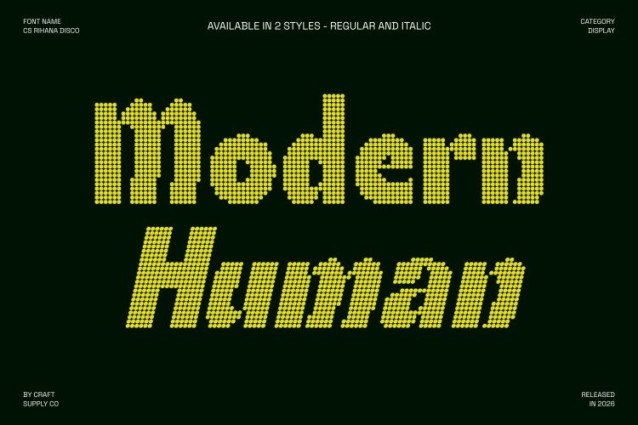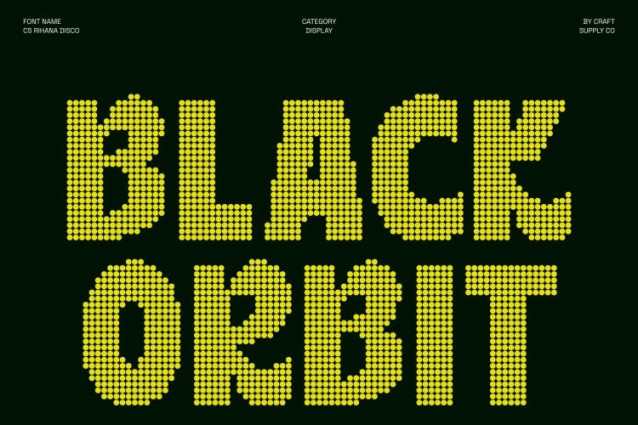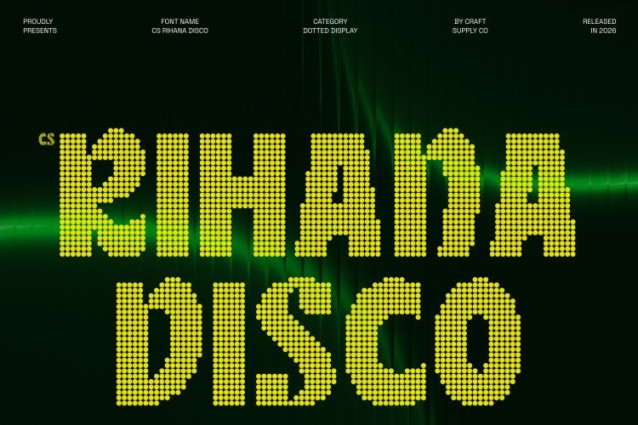
CS Rihana Disco Font
CS Rihana Disco Font – This Dot transforms the strong, modern sans serif into a display font made of vibrant dots. Each letter is crafted with playful circular elements that evoke sparkling lights, confetti, and the high-energy rhythm of the disco era. The bold structure is preserved, while the dotted detailing adds motion and visual excitement.
Stylish Sans Serif with Party Flair
Maintaining its clean lines and geometric strength, this version infuses stylish detailing inspired by disco aesthetics. The dots give the typeface a festive personality, turning every headline into a dynamic, eye-catching statement. The combination of bold weight and dotted texture conveys confidence with fun, glamour, and exuberance.
Perfect for Impactful Titles and Branding
Ideal for posters, event graphics, club promotions, music album covers, fashion campaigns, and social media visuals, Dot delivers maximum attention and a memorable, lively appearance. Its bold form ensures readability, while the dotted effect makes the typography feel celebratory, stylish, and energetic.
Glamorous, Playful, and Memorable
This disco-inspired version takes the commanding presence of the original and adds a cheerful, party-ready twist. Every word looks like it’s illuminated with disco lights, creating a fun, engaging, and glamorous typographic experience.